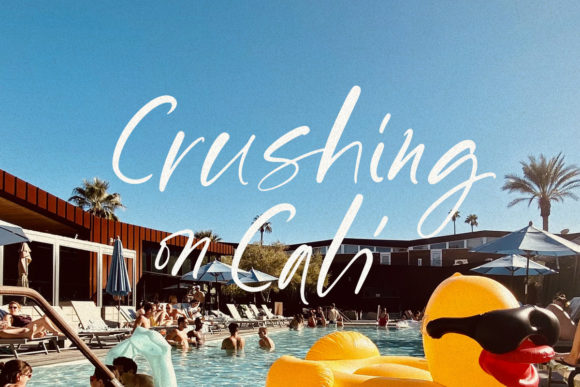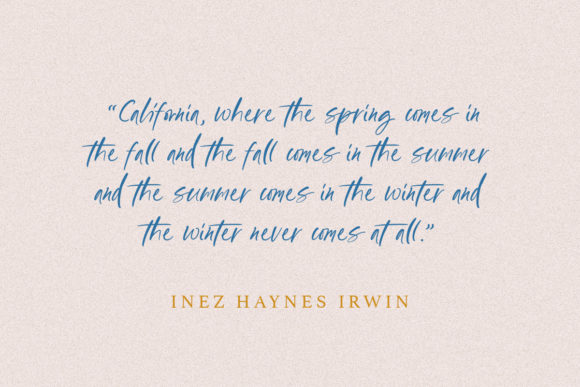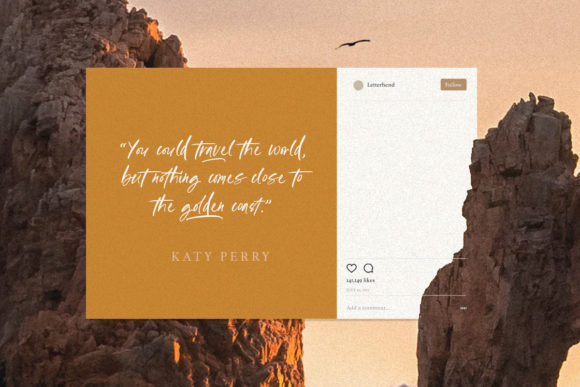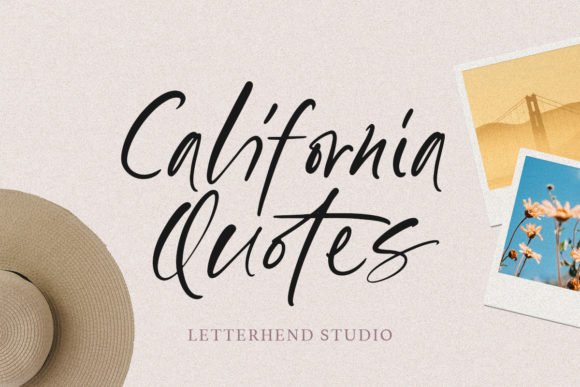
Introduction to California Quotes Font
California Quotes is a lovely and relaxed script font that exudes elegance and class.
This font was particularly crafted for those who need a beautiful and refreshing look to their designs .
Key Features of California Quotes Font
Why Choose California Quotes Font?
California Quotes Font offers exceptional quality and versatility, making it a valuable addition to your design toolkit. Whether you’re creating for personal projects or commercial use, California Quotes Font delivers professional results.